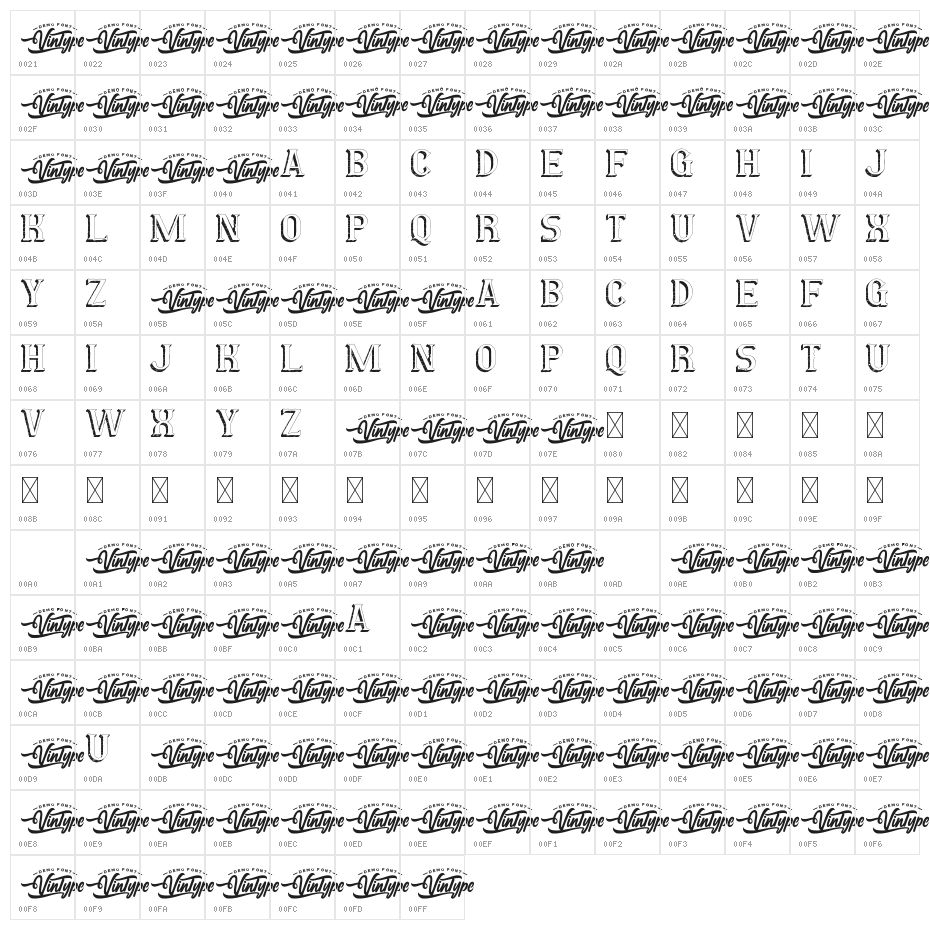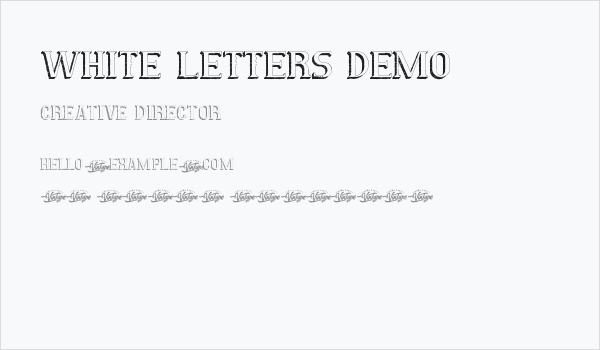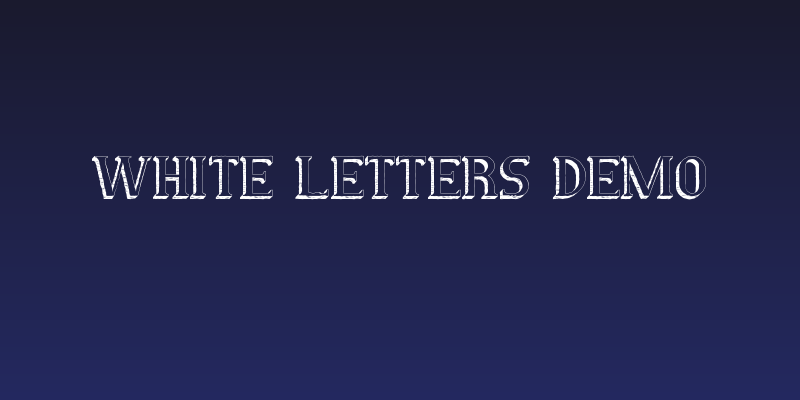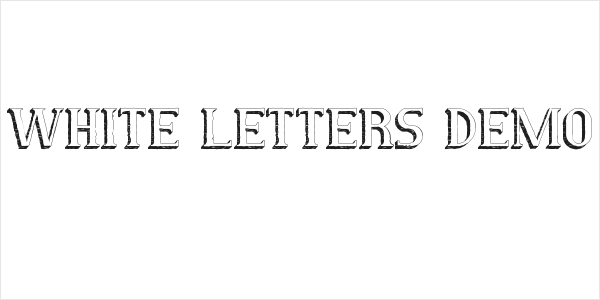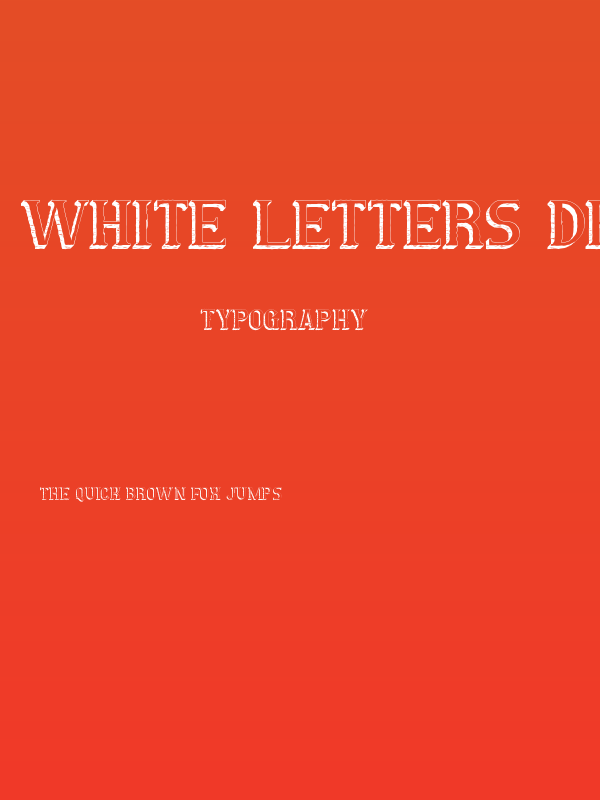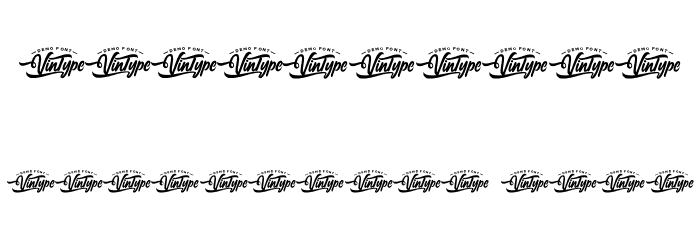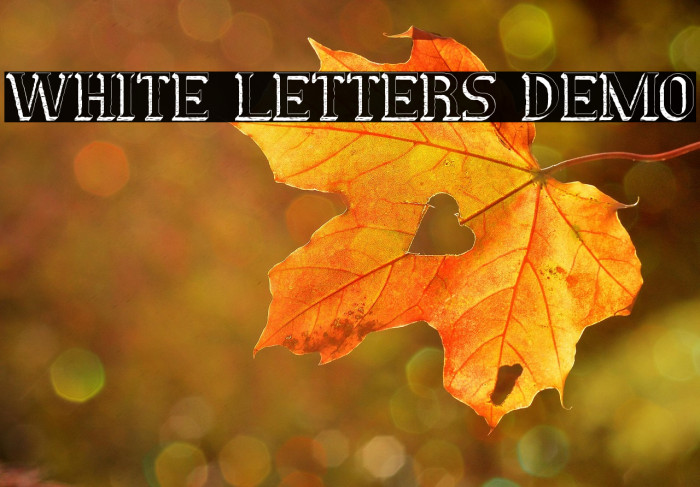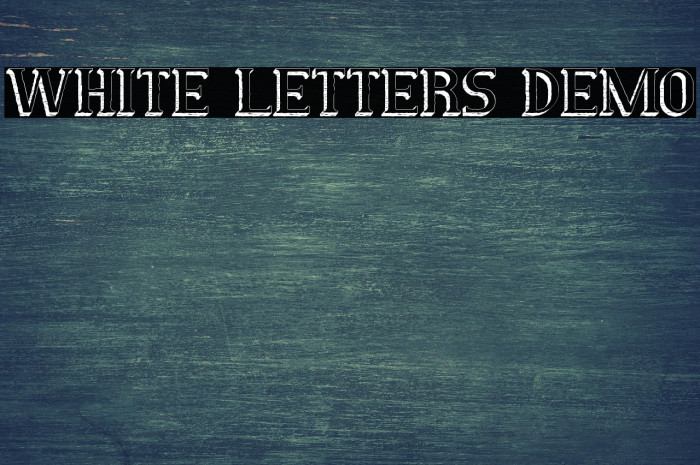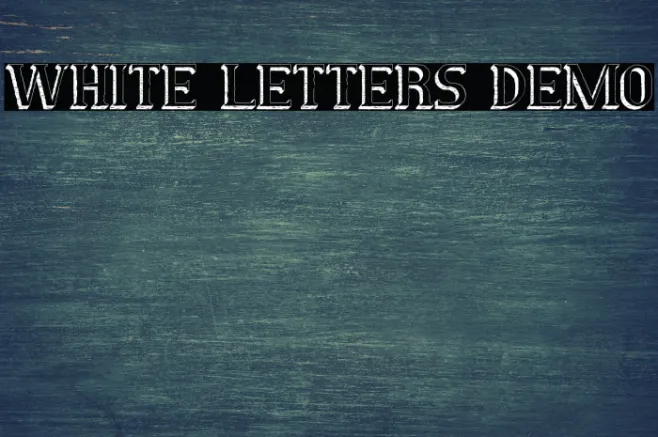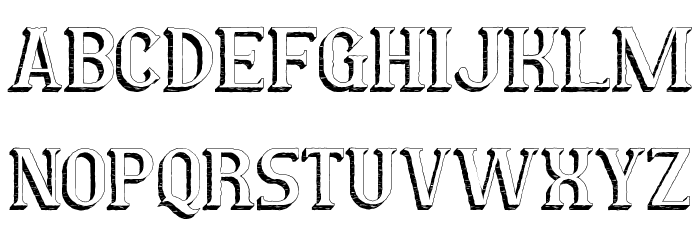
White Letters Demo Font
White Letters Demo Description
This font features a bold and decorative style with a vintage flair. The uppercase letters are designed with a strong presence, characterized by thick strokes and a shadow effect that gives a three-dimensional appearance. The lowercase letters maintain the same decorative style, ensuring consistency throughout the typeface. The numerals are equally bold, matching the overall aesthetic of the font. Special characters are included, each designed to complement the ornate style of the letters and numbers. The font's intricate details and shadowing make it ideal for projects that require a touch of elegance and sophistication.
| Proposed Projects | Ideal for vintage-themed posters, logos, branding, and packaging designs. |